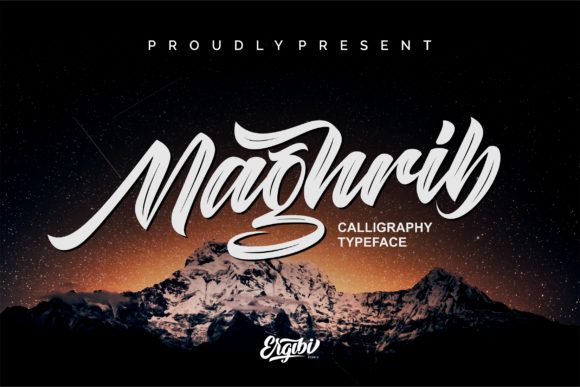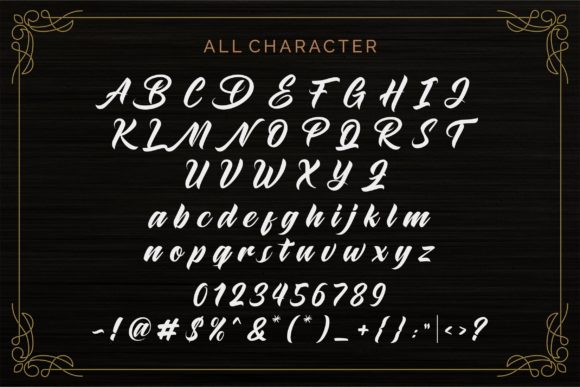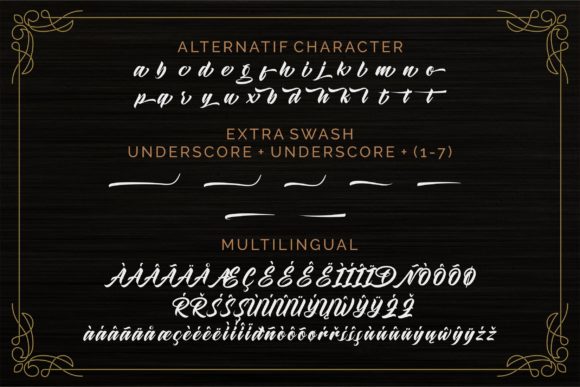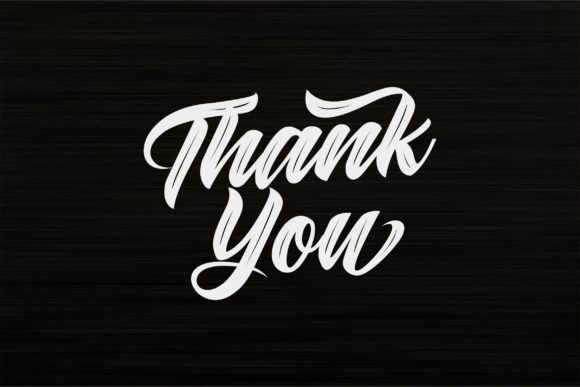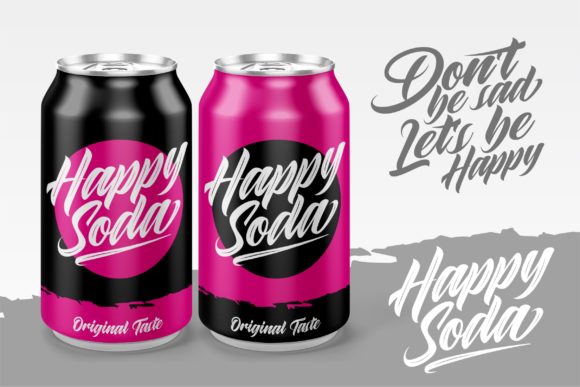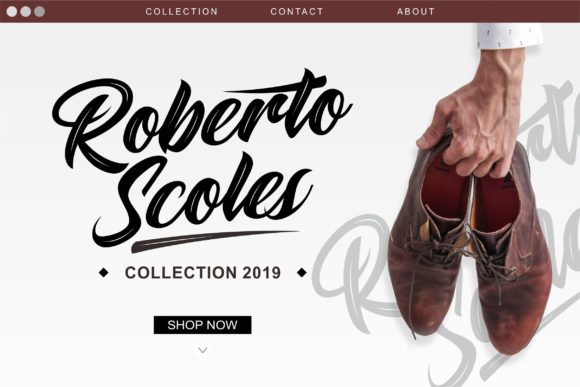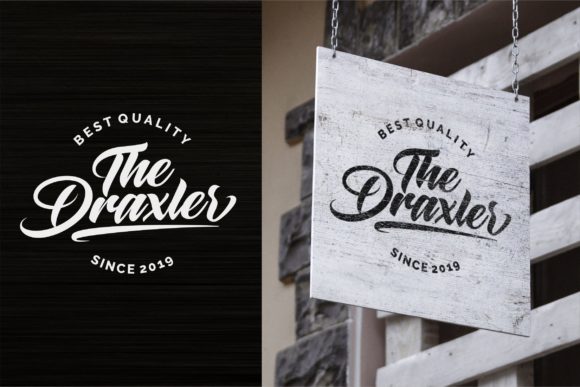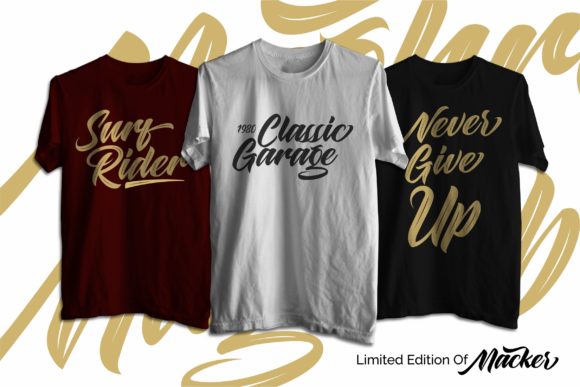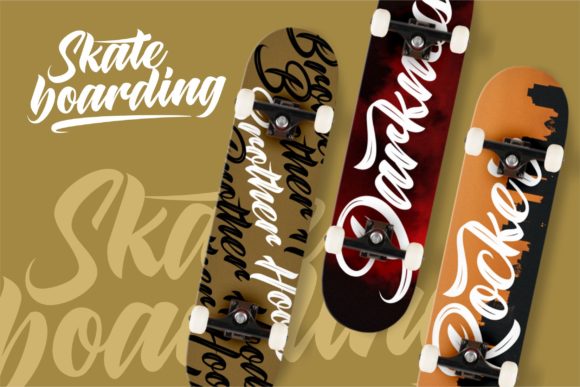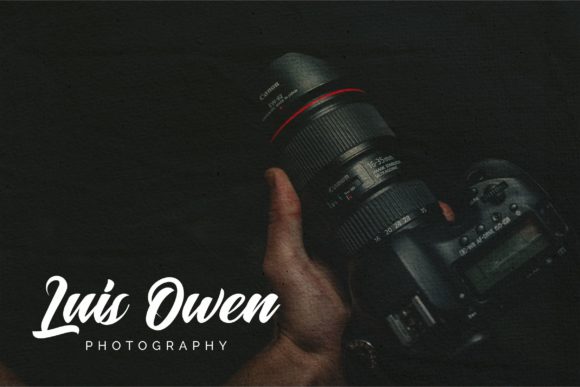
HomeScript FontsMaghrib Font Script Fonts Maghrib Font FacebookXPinterestWhatsApp Maghrib Font Poster 2 Maghrib Font Poster 3 Maghrib Font Poster 4 Maghrib Font Poster 5 Maghrib Font Poster 6 Maghrib Font Poster 7 Maghrib Font Poster 8 Maghrib Font Poster 9 Maghrib Font Poster 10 Maghrib Font Poster 11 Maghrib Font Poster 12 About Maghrib Font Maghrib is a sweet and casual script font with a cool vibe. Use it to turn any design idea into a true standout! DOWNLOAD NOW People also explored Amatha Hillayah Font Sathela Font Strong Monsters Font Hocus Pocus Font Winongo Font Cowboyslang Garelliye Font Villagio Font Simple Marker Font 368 0 TagsMaghrib Font Previous articleMishaela Script FontNext articleSebqor Font LEAVE A REPLY Cancel reply Comment: Please enter your comment! Name:* Please enter your name here Email:* You have entered an incorrect email address! Please enter your email address here Website: Save my name, email, and website in this browser for the next time I comment. Personal Use Free Aline Personal Use Free Read more about this font Milda Personal Use Free Read more about this font Coffete Personal Use Free Read more about this font Shrag Script Personal Use Free Read more about this font BLOG Where to Buy American Fonts Online in 2024 Where to Buy American Fonts Online: The Ultimate Guide for 2024 Looking for the perfect American font to elevate your design projects? You're in the... Using Fonts in Digital Marketing: Tips to Strengthen Your Brand Identity To increase your work productivity, choose the most readable fonts. Fonts That Capture the Spirit of New York City